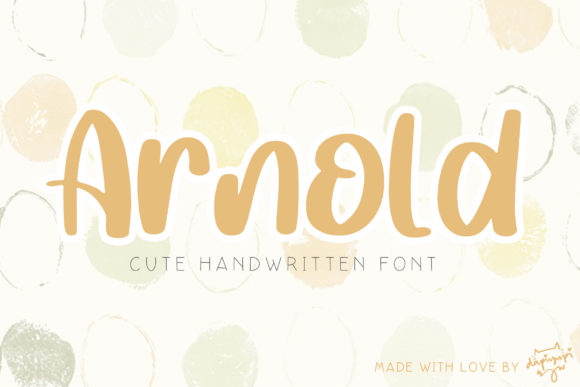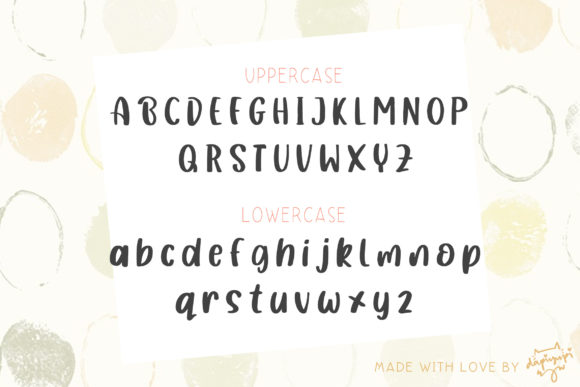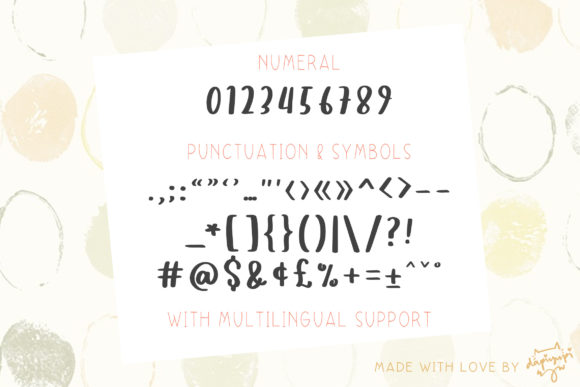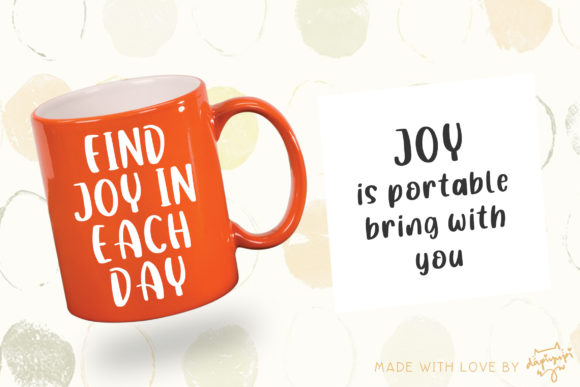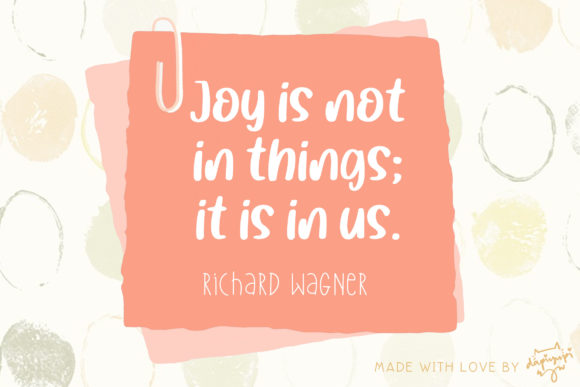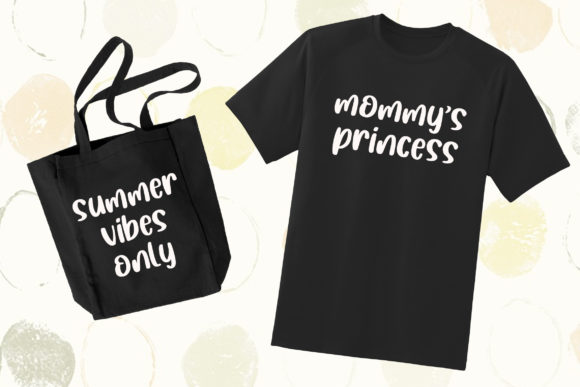
Arnold Font
About Arnold Font
Arnold is a cute and quirky handwritten font. Sweet and playful, this typeface can elevate the look of any creation ranging from product packaging to business cards, and more!